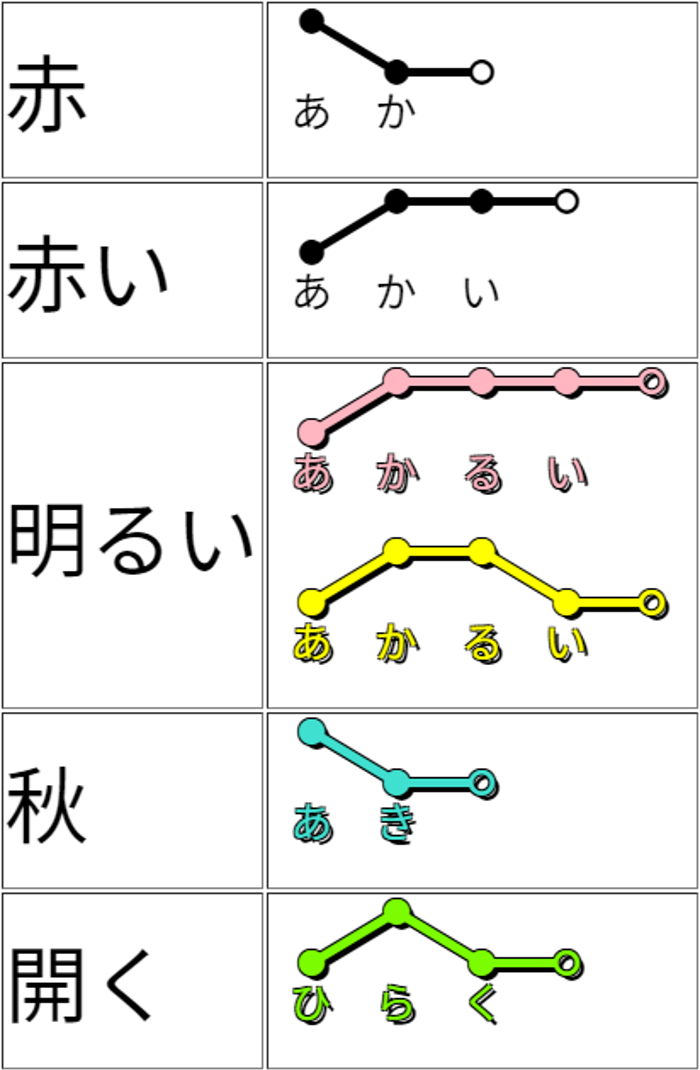
Kana Word Pitch Font
Word-Pitch Style
This is a font for displaying the pitch marks above Japanese kana words. It's not good for sentences. I was inspired to make this font after seeing Dogen's Youtube videos and I highly recommend you watch them.
How to use.
Just type 2 numbers above the kana. The number of mora in a word and it's pitch number. For example you would type 3 and not 4 for かいしゃ since the しゃ is one mora. Find a dictionary that has the pitch numbers like Jsho (not all dictionaries have them) and use that number as the 2nd number.
30
かいしゃ
When centering be sure to add a non breaking space after the kana so everything stays lined up.
30
かいしゃ(put a non breaking space here if you center or right align your text)
If the number of mora is beyond 9 use upper case letters. This font can do up to up to 13 mora (バニラクリームフラペチーノ).
Use capital A for 10.
Use capital B for 11.
Use capital C for 12.
Use capital D for 13.
Known issues
1.) Chrome for Windows needs font hardware acceleration turned off when rendering long pitch accents (like 8 or more mora). This does not seem to affect Chrome for Android.
2.) Chrome has a bug that disables ligatures in Unicode characters when the liga tag is used. This causes the spacing for しゃ and others kana ligatures to be off.
I am an amateur at creating fonts. I am providing this font as is (don't expect any replies to issues you may have). This font was created by modifying the open source SourceHanSansJP-Regular font. I adjusted the spacing, added ligatures, added pitch marks and removed the kanji to reduce the file size. The font for the kanji in the example image in the left column came from the original SourceHanSansJP-Regular font. The pitch accent font in the right column is this font.
The pitch accents are created with ligatures. For example in many English fonts ft is combined by replacing the f and t glyphs with a single glyph. The replacement glyphs are referred to as ligatures. The pitch marks are the ligatures generated with the numbers / letters (0123456789ABCD).